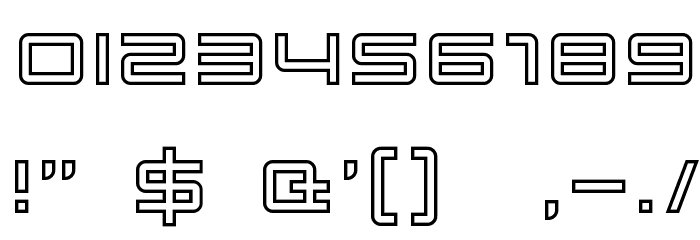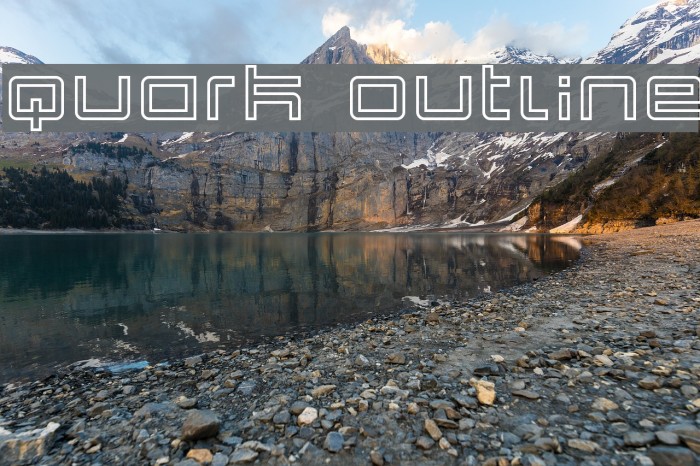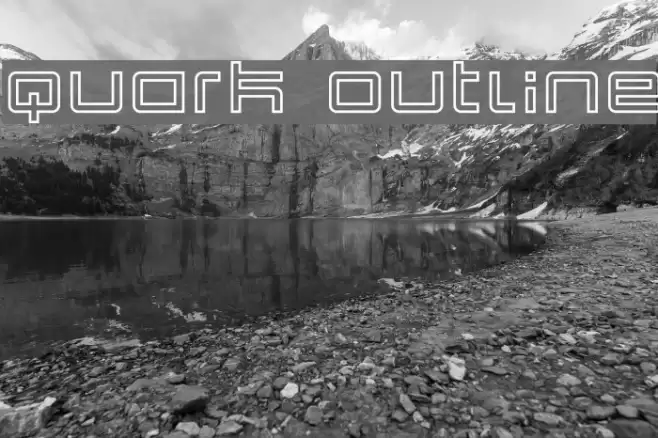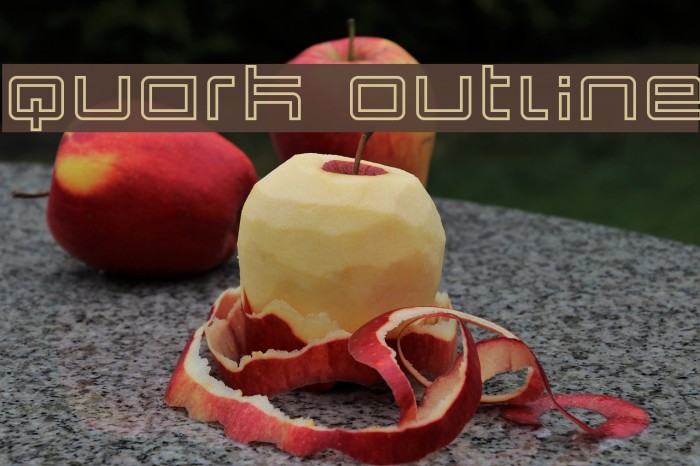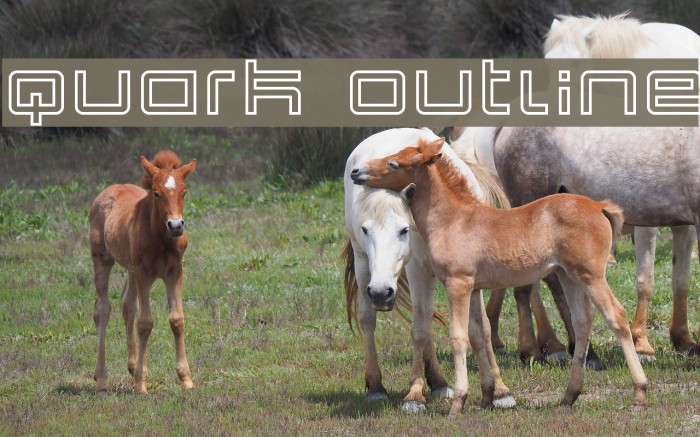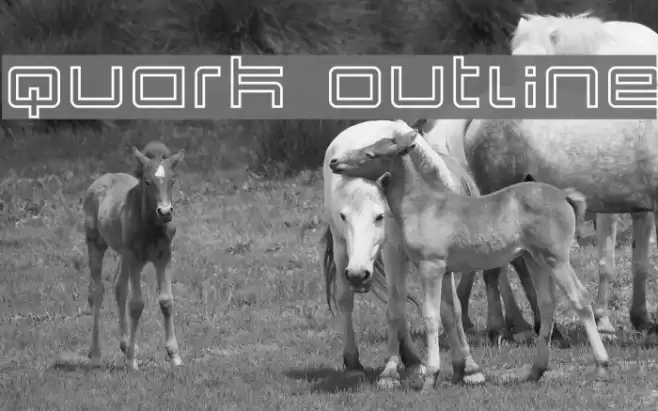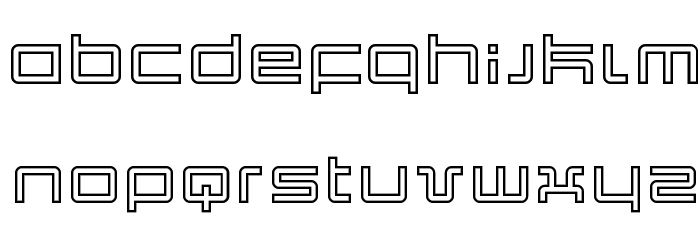
Quark Outline Font
Quark Outline Description
This font features a unique outline style with a geometric and futuristic appearance. Each character is crafted with precision, showcasing a consistent line width that forms a hollow interior. The uppercase and lowercase letters maintain a uniform height, contributing to a cohesive and structured look. The numerals and special characters follow the same design principles, ensuring a harmonious visual experience across all glyphs. The font's clean lines and modern aesthetic make it suitable for projects that require a contemporary and tech-inspired feel.
| Use Case | Logos, Headlines, Posters |
| Proposed Projects | Ideal for technology branding, digital media, sci-fi themed projects, and modern graphic design. |